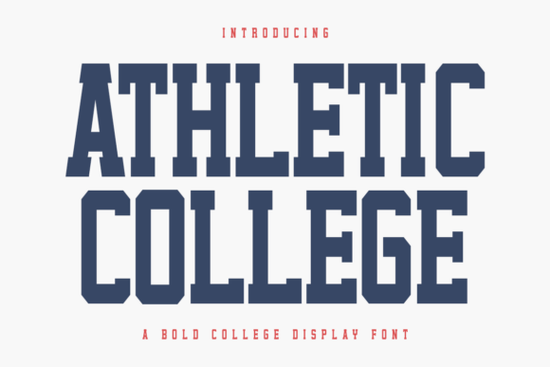
Looking for a bold, classic typeface that works perfectly for sports apparel and school-themed designs? The Athletic College Font is a collegiate display typeface built for exactly that. It has a sturdy, blocky structure with clean lines that make it ideal for t-shirt designs, varsity jackets, jerseys, spirit wear, and a wide range of print-on-demand products. If you work with vinyl cutting machines, create custom apparel, or design promotional materials for teams and schools, this font deserves a spot in your toolkit.
What makes a good athletic or collegiate font?
Athletic and collegiate fonts need to do a few things well: they should be bold, highly readable, and carry a strong visual presence at any size. The varsity style has been around for decades, and there's a reason it still works it communicates strength, team pride, and tradition without needing any extra decoration.
The Athletic College typeface nails all of these qualities. Its thick letterforms and even spacing keep words legible whether they're printed on a small gift tag or stretched across a large event banner. For anyone creating designs in the sports, fitness, or education space, this kind of reliability matters a lot.
What can you actually use this font for?
This is where Athletic College really shines. Its versatility goes well beyond just slapping text on a t-shirt. Here are some practical ways designers and crafters are using it:
- Custom apparel T-shirts, hoodies, varsity jackets, and team jerseys for print-on-demand shops
- Vinyl cutting projects Works great with Cricut and Silhouette machines for decals, wall art, and car stickers
- School and team materials Spirit wear, pep rally posters, fundraiser graphics, and graduation merchandise
- Fitness branding Gym logos, workout plans, motivational wall prints, and membership cards
- Personalized gifts Custom water bottles, tote bags, phone cases, and engraved items
- Event promotion Sports tournament flyers, camp brochures, and league schedules
The blocky construction also means it reproduces cleanly at small sizes, which is important when you're working with heat transfers or sublimation printing where fine details can get lost.
How does it compare to other display fonts?
There are plenty of bold display typefaces out there, but not all of them work well for athletic-themed projects. Some are too decorative and lose readability at small sizes. Others look great on screen but fall apart in print.
Does it work for print on demand?
Absolutely. If you sell on platforms like Etsy, Redbubble, Merch by Amazon, or your own Shopify store, a strong collegiate typeface is one of the most consistently searched-for styles in the custom apparel market. Customers looking for team spirit shirts, graduation gifts, or gym motivation gear all respond well to this aesthetic.
The key with POD is using fonts that render clearly in both digital mockups and final printed products. Athletic College handles this well because its letterforms have even weight distribution no thin strokes that might disappear in a DTG print or thin out on a heat transfer.
Is it good for Cricut and Silhouette projects?
Yes. The clean, blocky design of this font means your cutting machine can trace the outlines accurately without jagged edges or weird artifacts. This is a real advantage over some more ornate typefaces that require extra cleanup in Design Space or Silhouette Studio before you can cut them cleanly.
Whether you're making vinyl decals for team lockers, iron-on transfers for spirit wear, or layered paper crafts for a school event, you'll spend less time troubleshooting and more time actually creating.